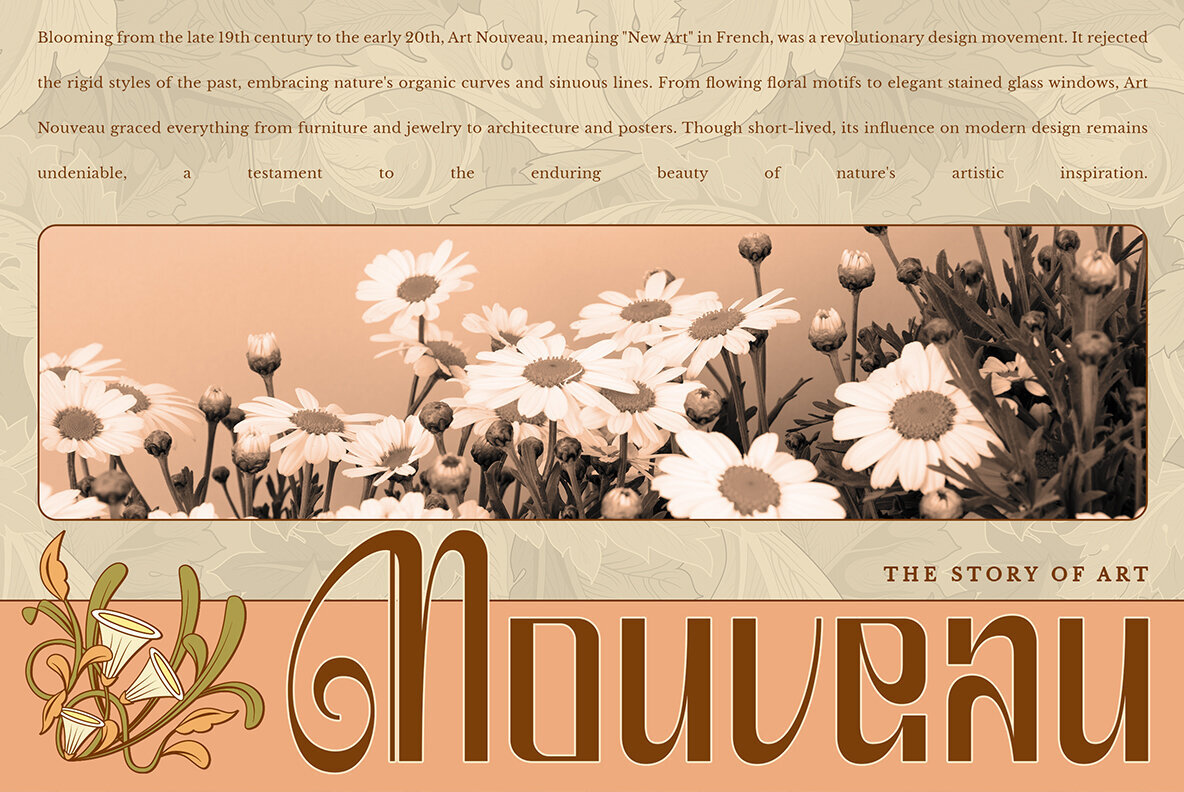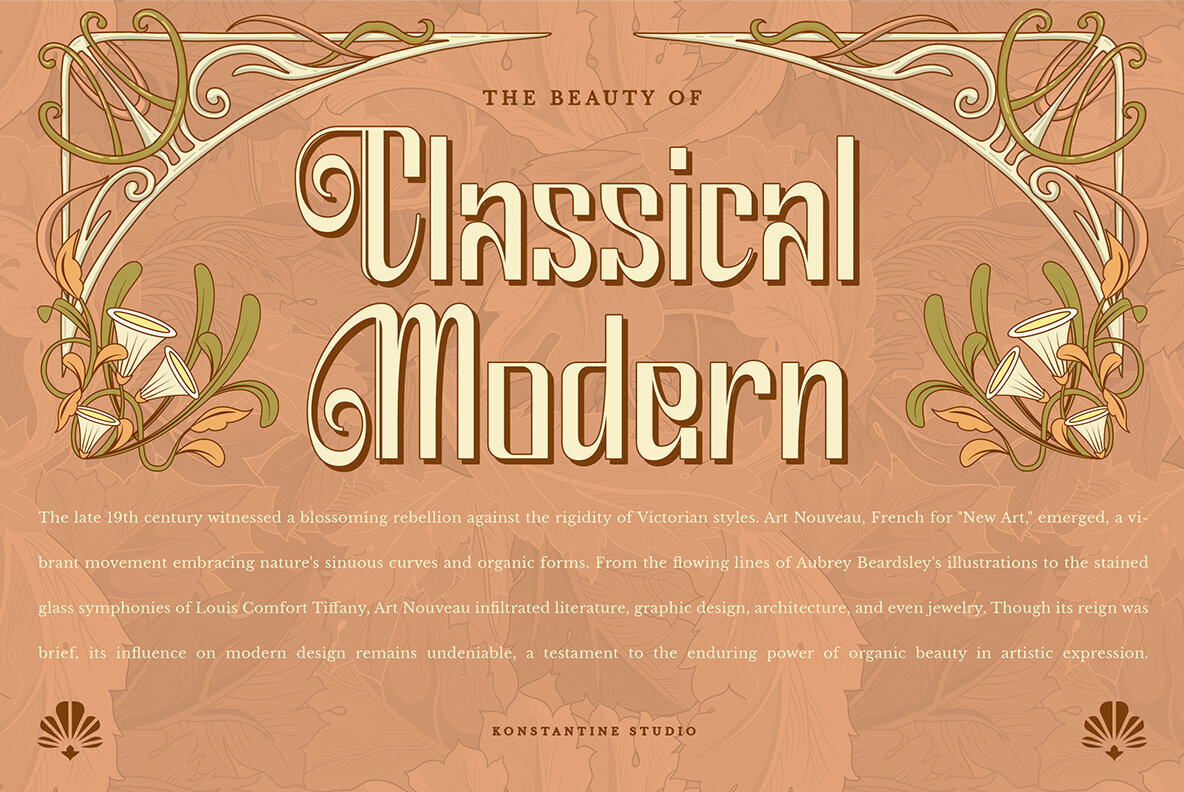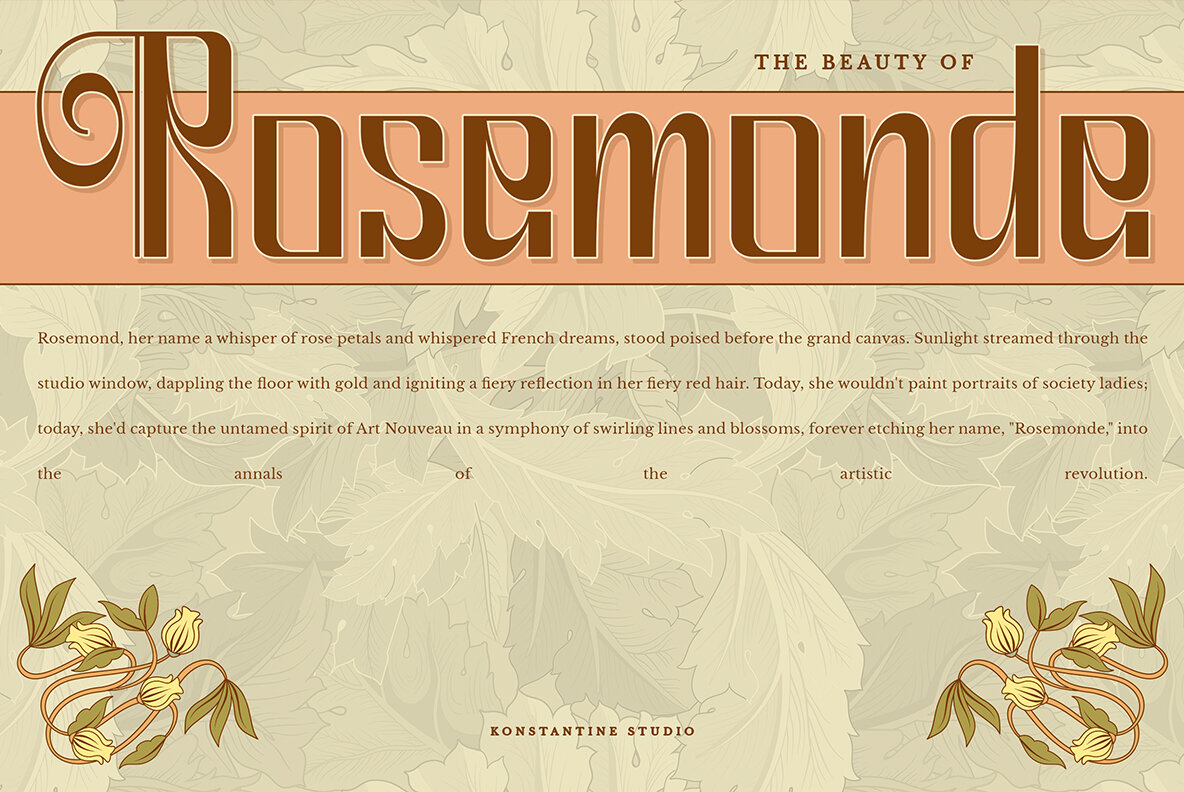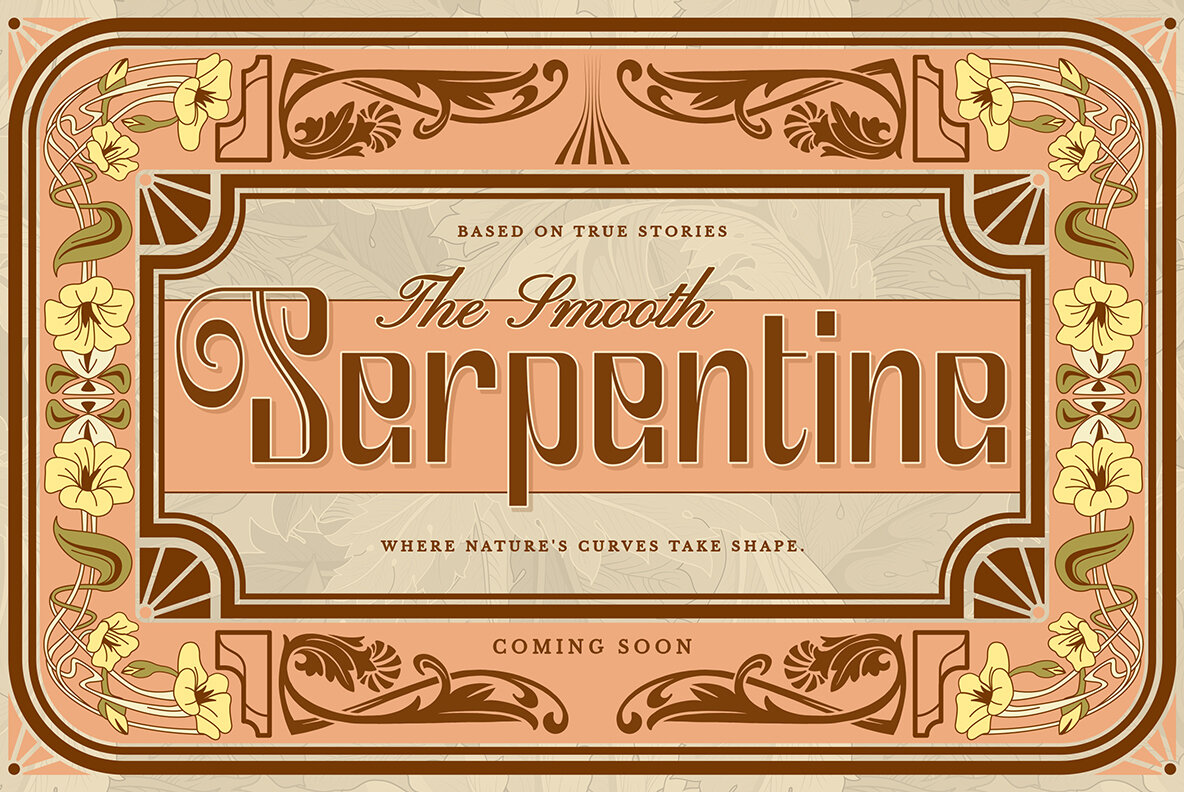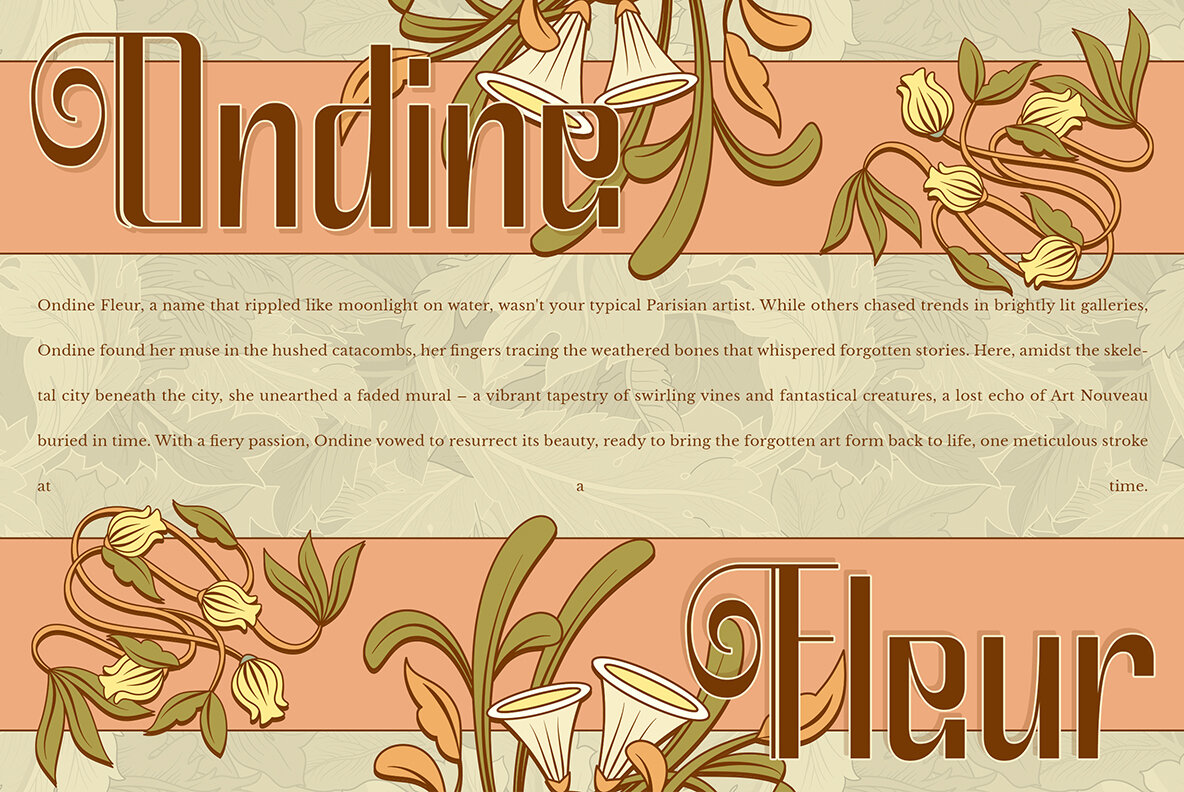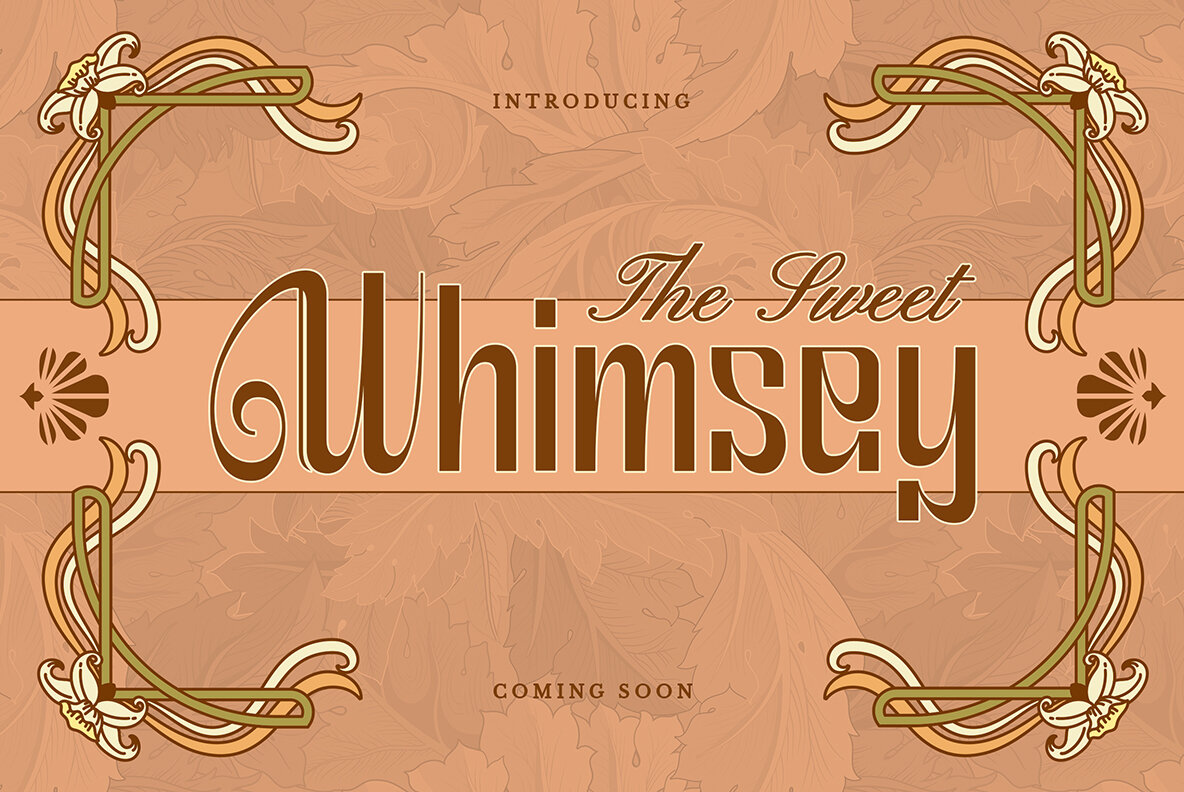
Agolia Font
Agolia Regular
Forget minimalism, embrace maximalism! Agolia isn’t your average font; it’s a hypersonic leap back to the dazzling year of 1899. Remember those luscious posters plastered on Parisian boulevards, teeming with whimsical orchids and flowing female forms? Agolia captures that irresistible Art Nouveau magic, but with a touch of modern brilliance. Imagine a world where typography dances with nature, where letters morph into ethereal vines and elegant curves. Agolia isn’t just a font; it’s a timeless portal to the golden age of Art Nouveau. Don’t just follow trends, set them. Get Agolia today and unlock the captivating power of Art Nouveau typography. It’s 1899, remastered!